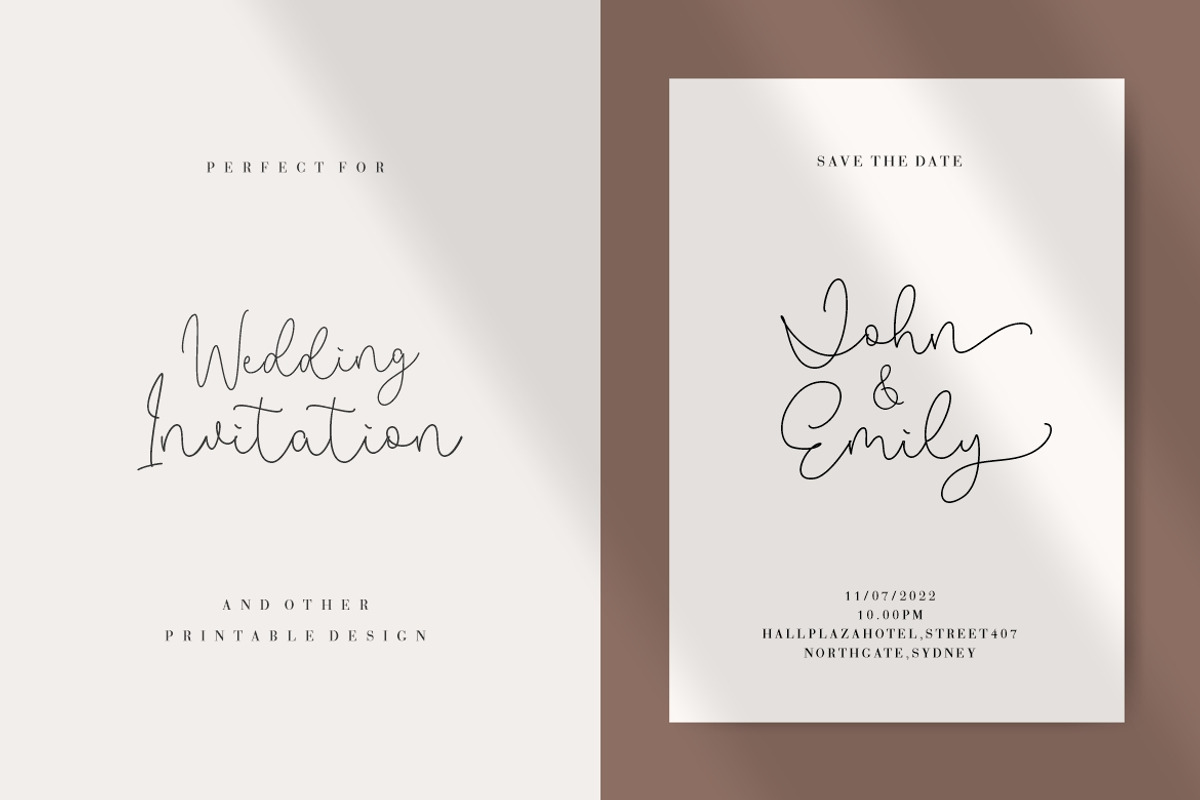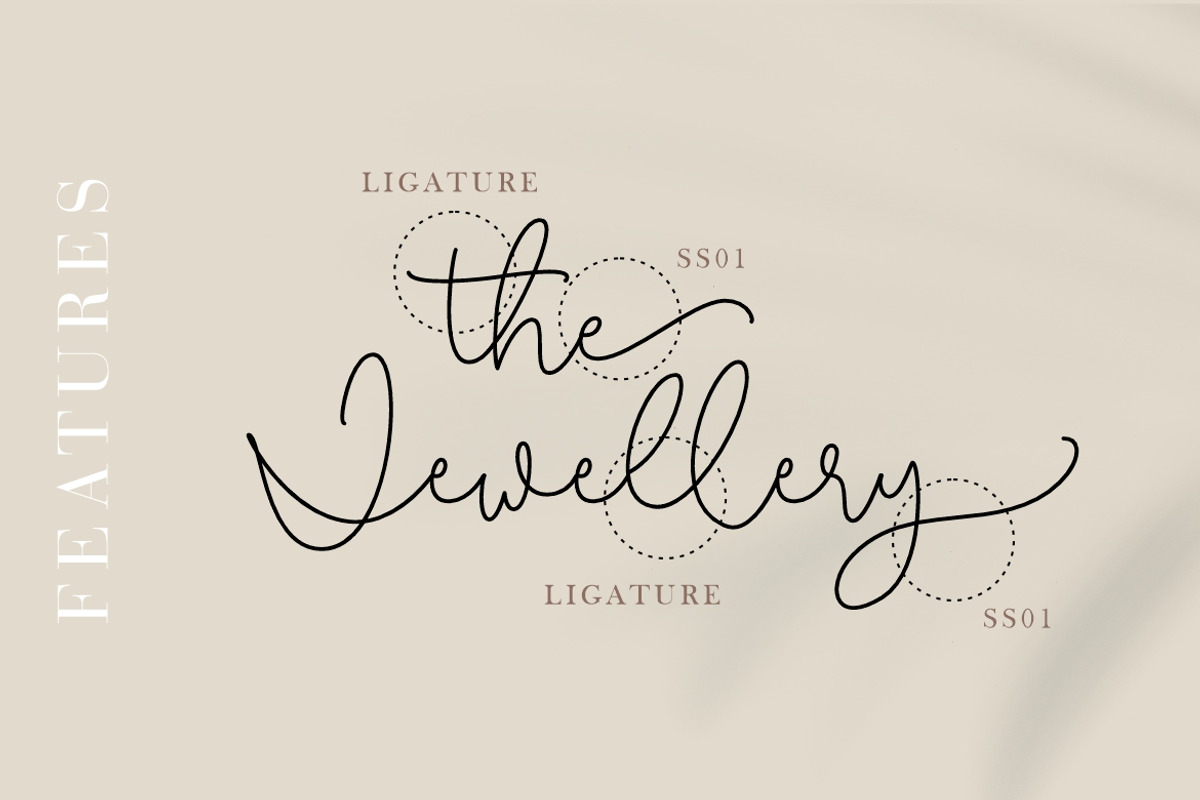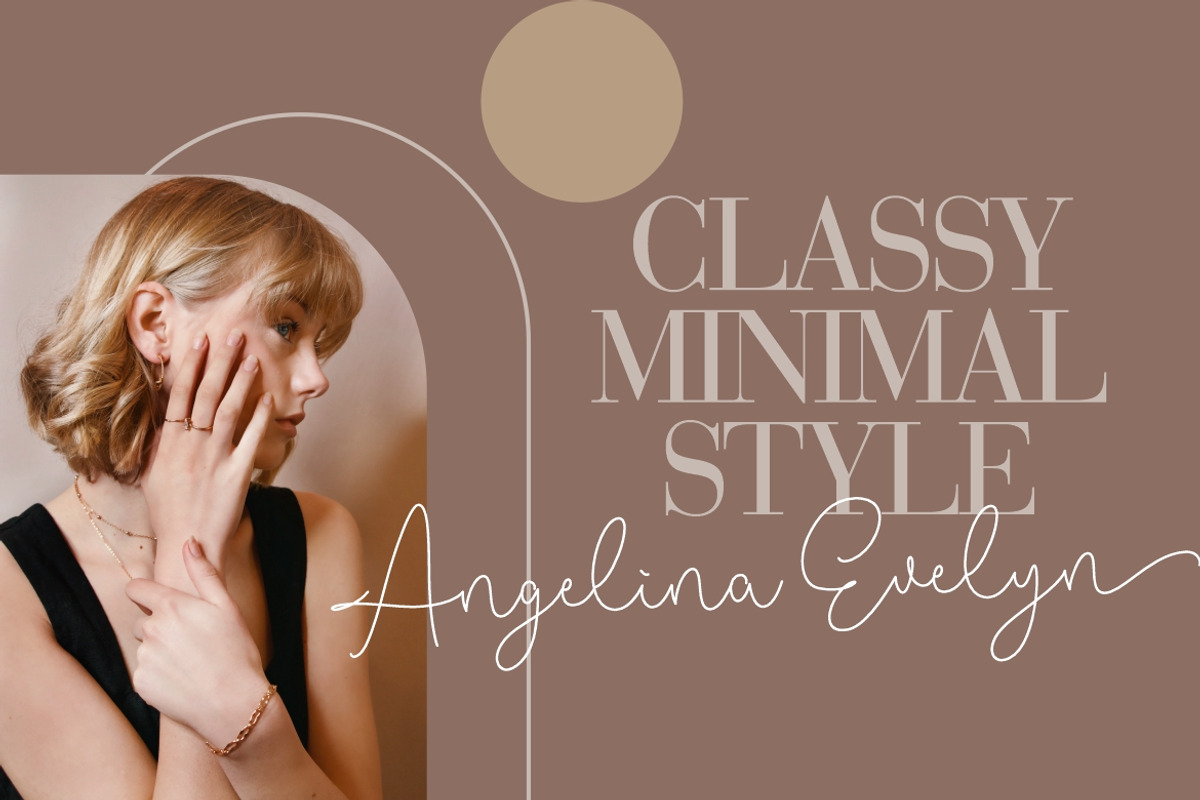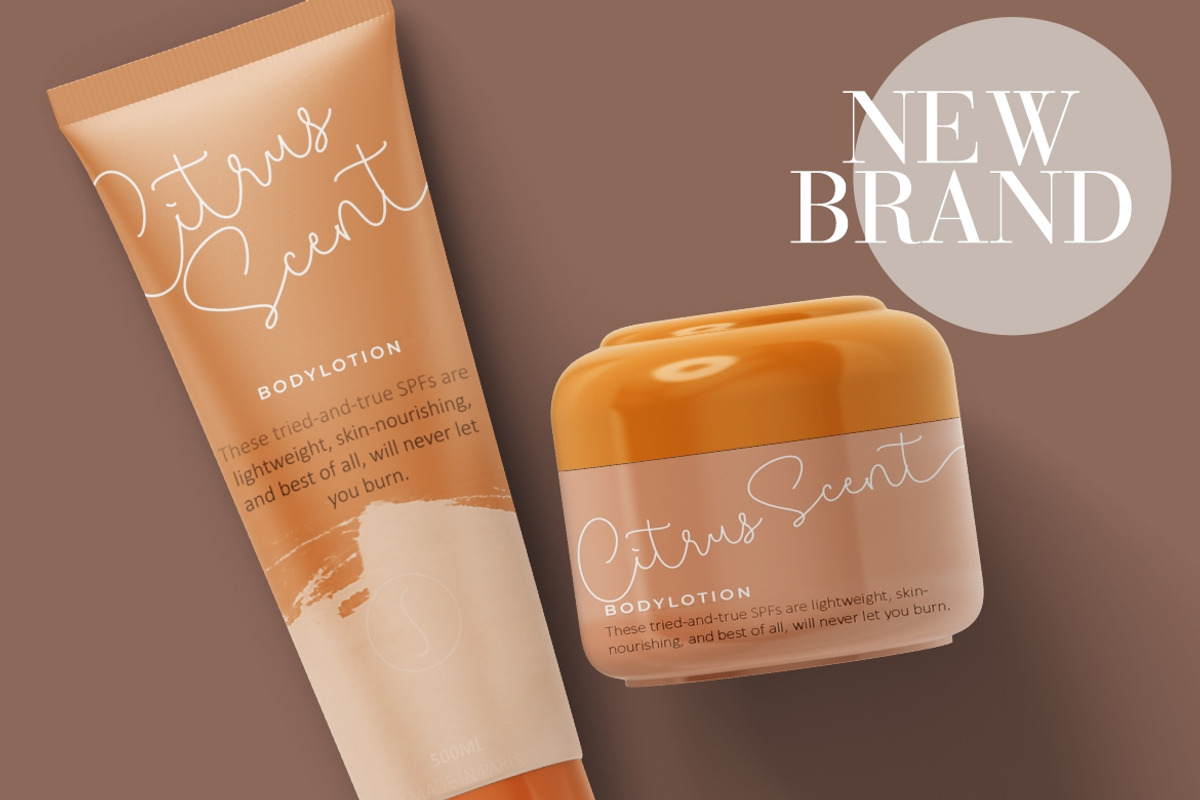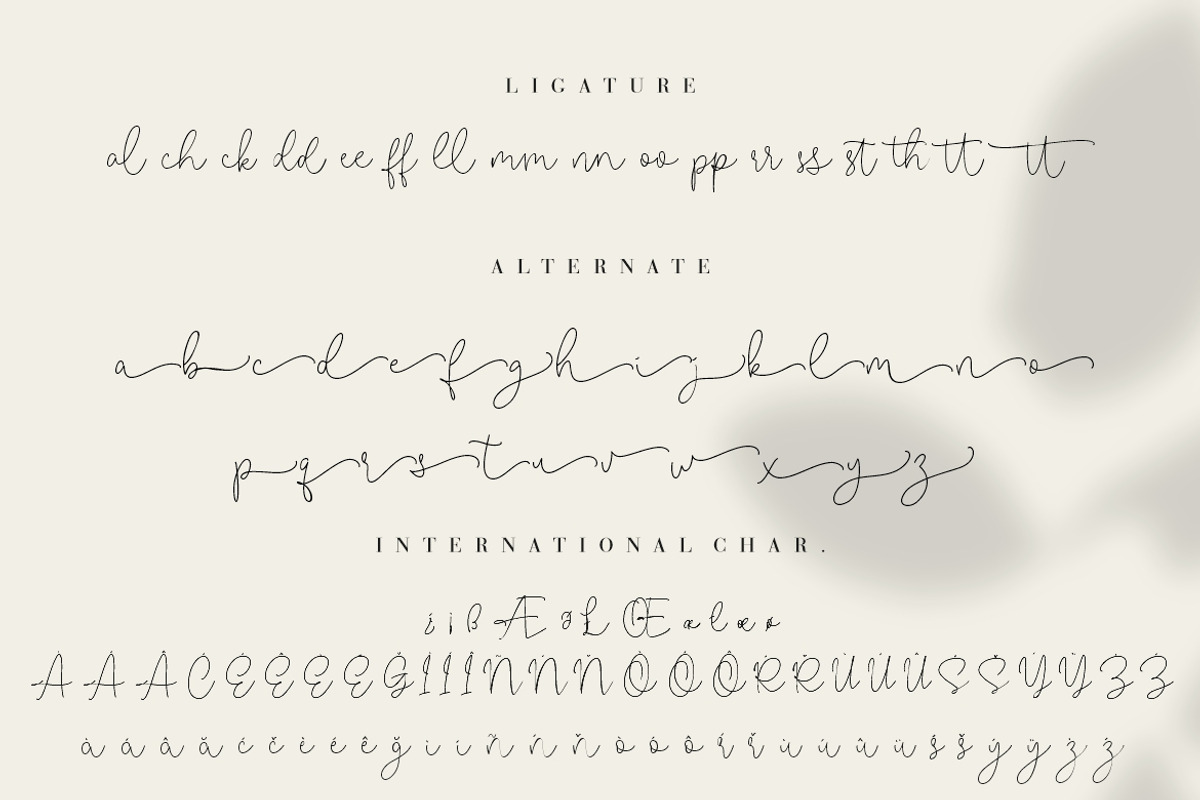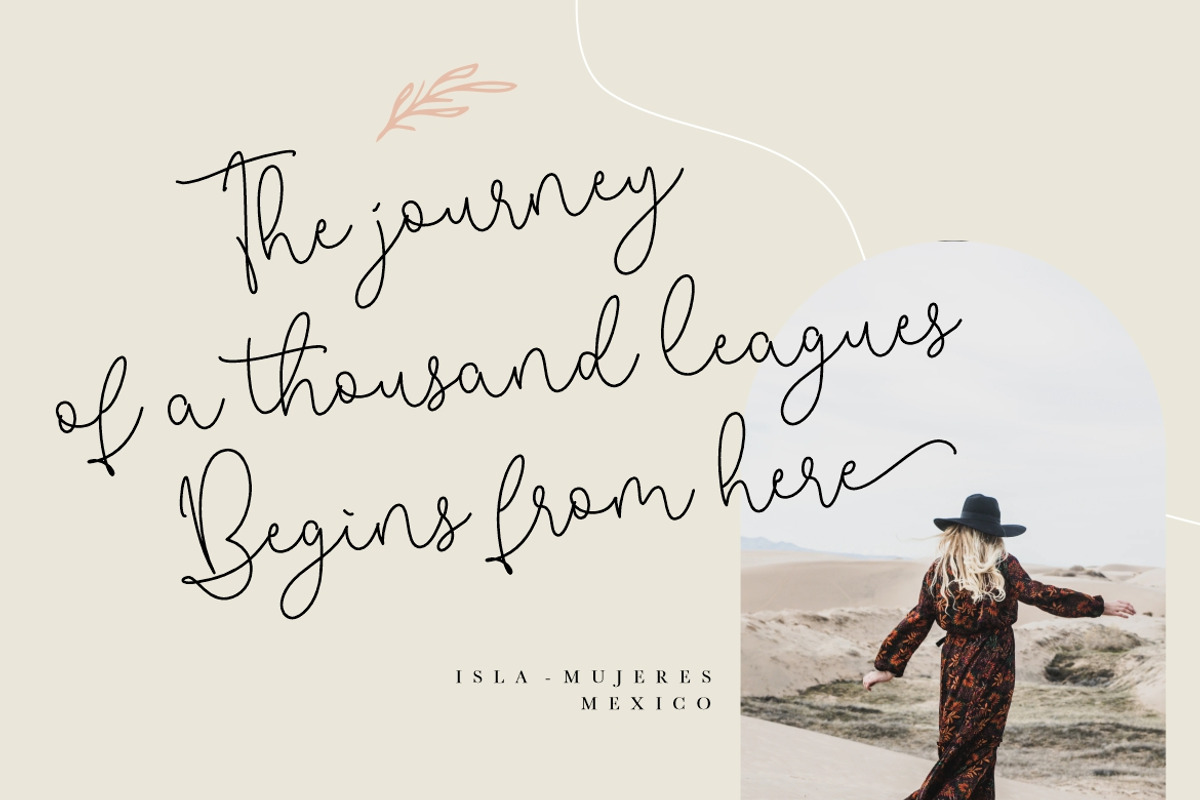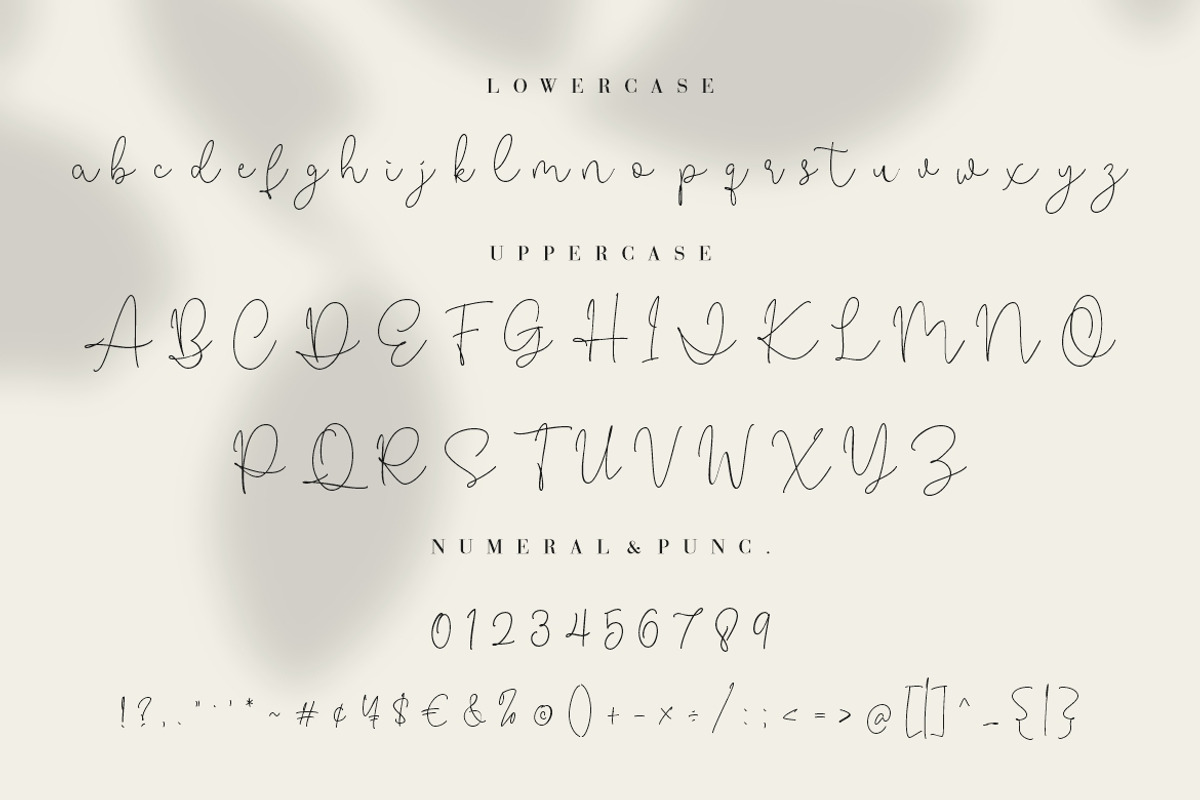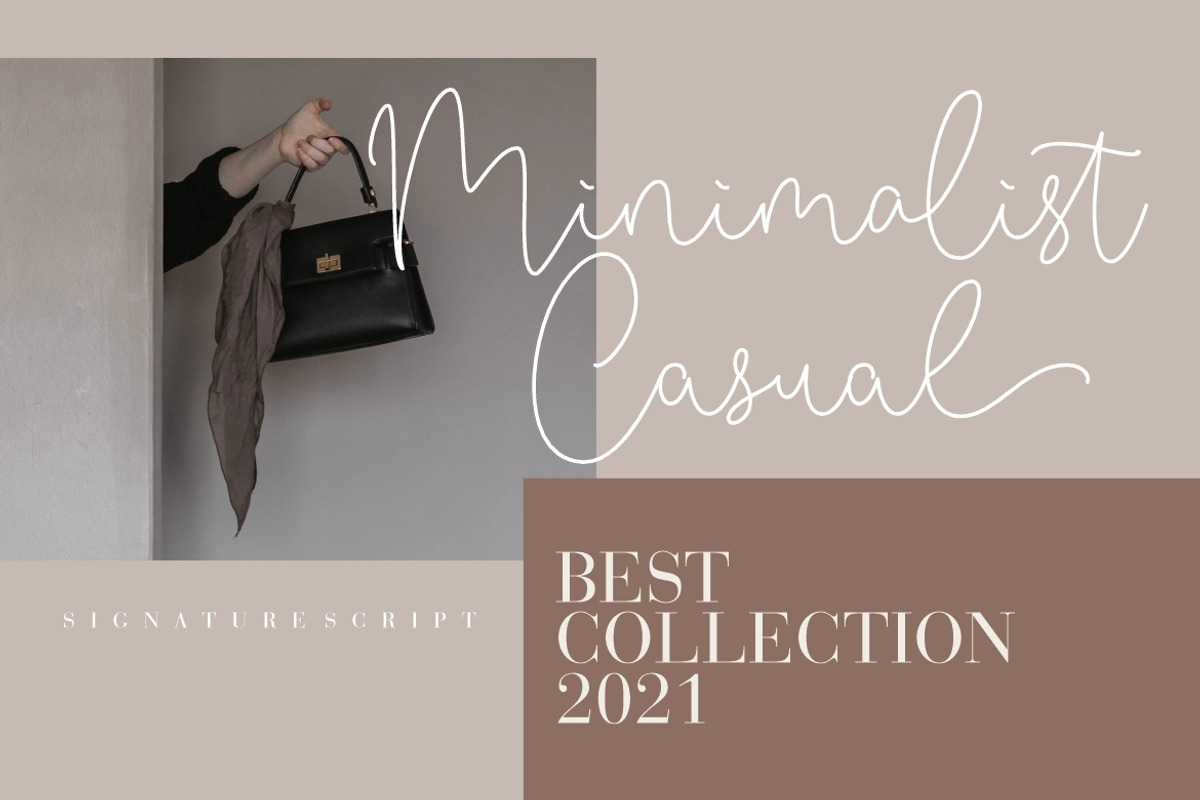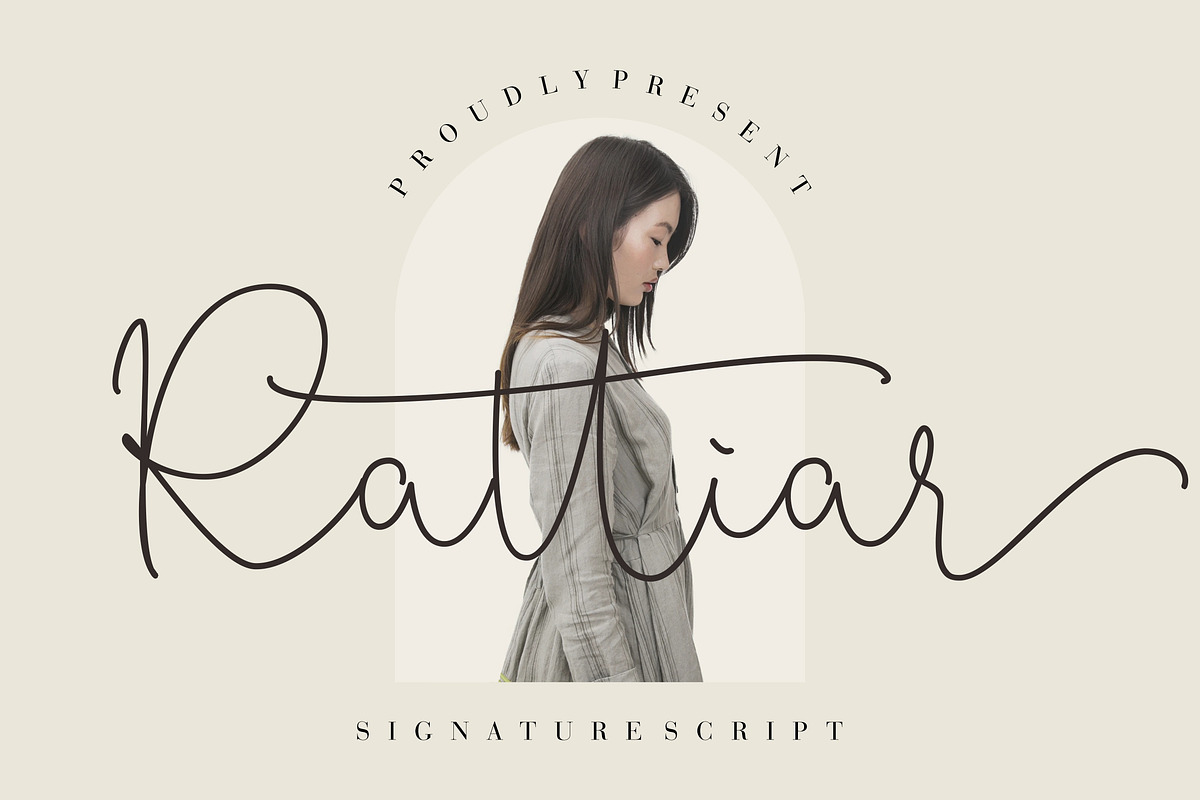
Rattiar Signature Script
Rattiar is signature script font which looks elegant, sophisticated and classy with monoline style.
Rattiar is perfect for branding projects, logo, wedding designs, social media posts, advertisements, product packaging, product designs, label, photography, watermark, invitation, stationery and any projects that need handwriting taste.
- Ligature & Alternate